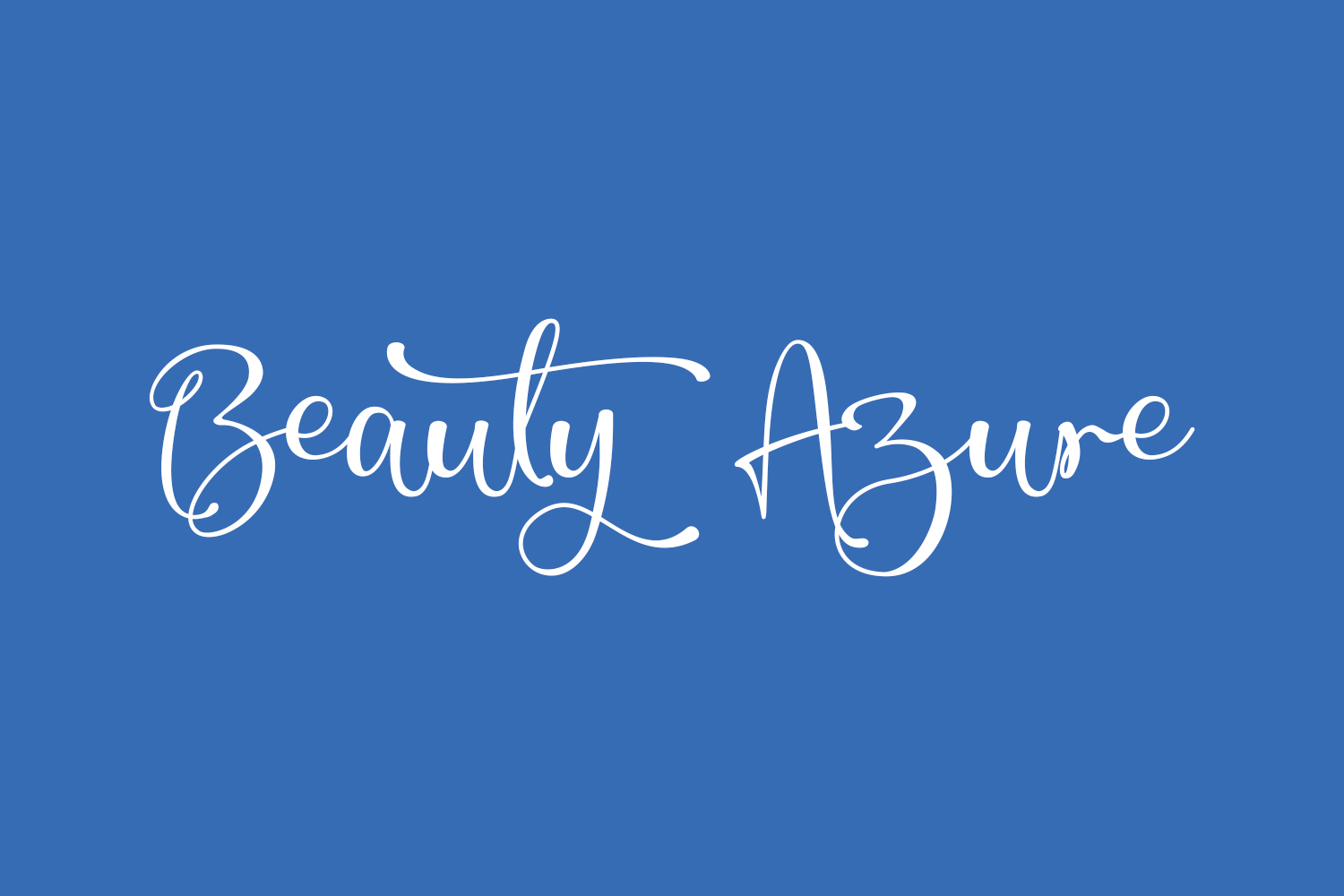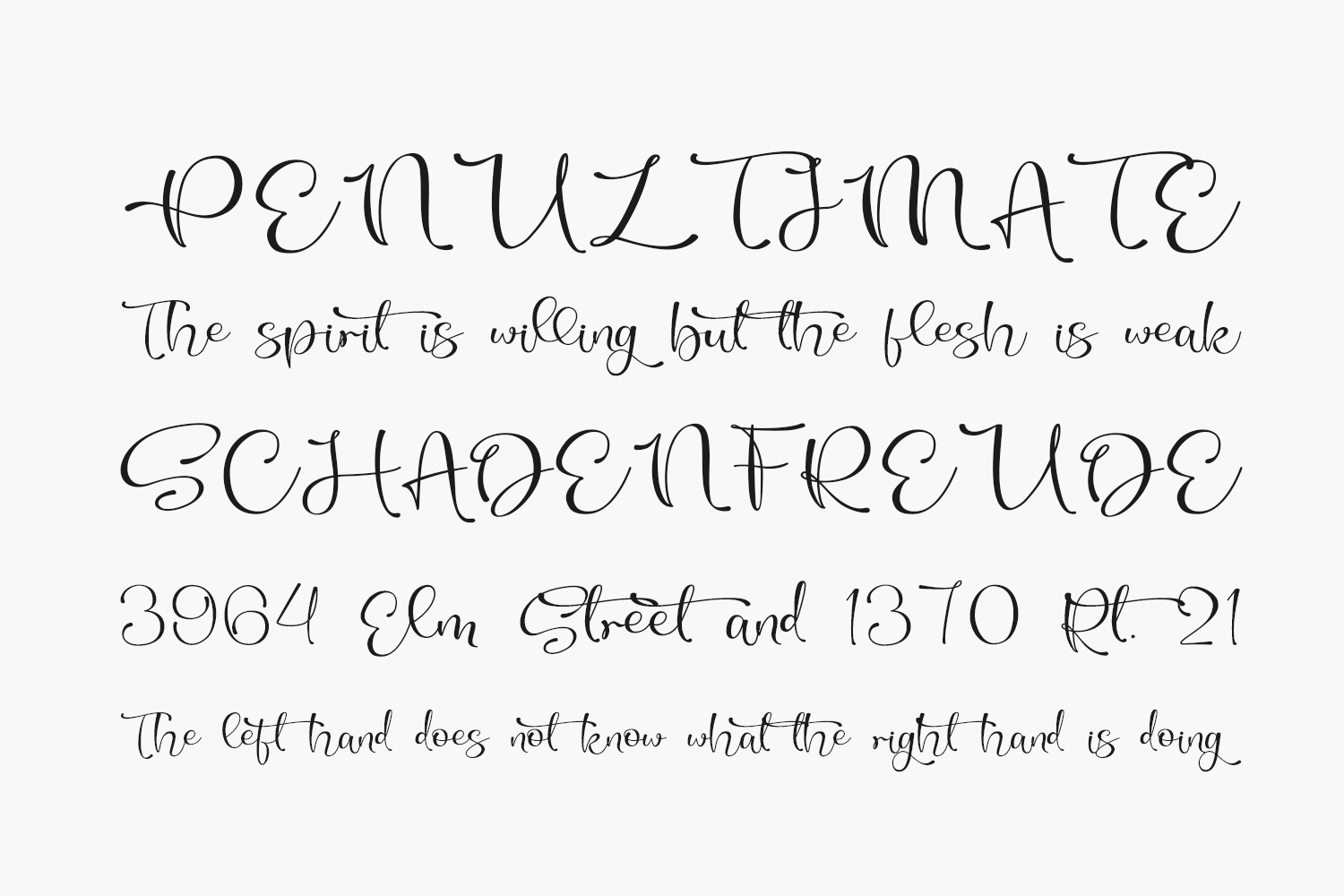
Beauty Azure Free Font, a charming handwritten font with rounded letters, is versatile for various applications, including crafting, digital design, presentations, and greeting card creation. Discover its perfect blend of sweetness and functionality. Beauty Azure Free Font is free for personal use only. Please purchase the full version for commercial use.
Designed by Eknoji Studio